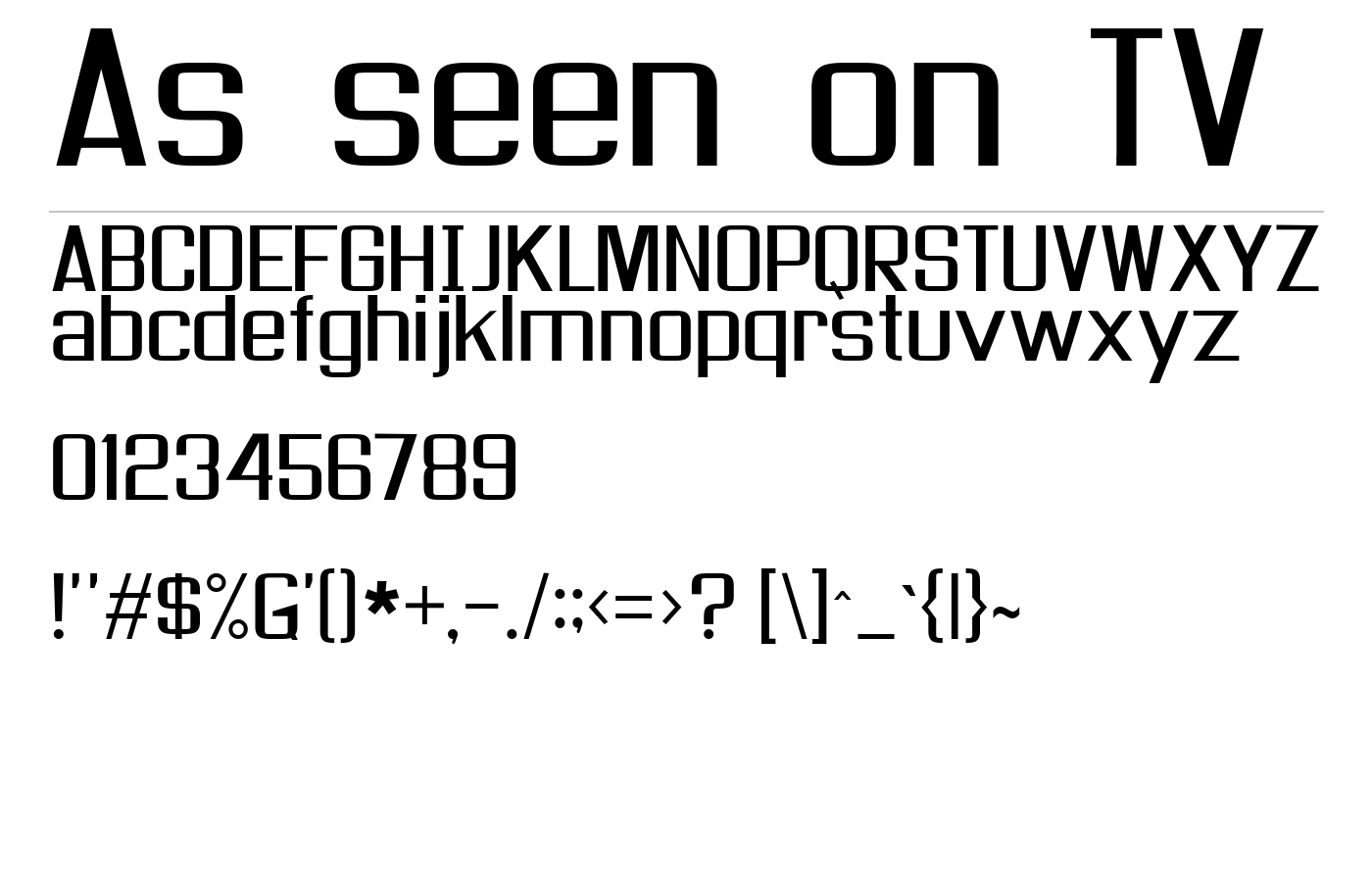
As Seen On TV is a bold, condensed sans serif font with a slightly rounded, modern appearance and consistent stroke weight, giving it a sturdy and industrial feel. Its high x-height, single-story letterforms, and tight spacing make it highly legible and impactful, perfect for attention-grabbing headlines or logos. This font works well in contexts where clarity and a contemporary, no-nonsense vibe are key, such as advertising, packaging, and digital displays.
As seen on TV Font